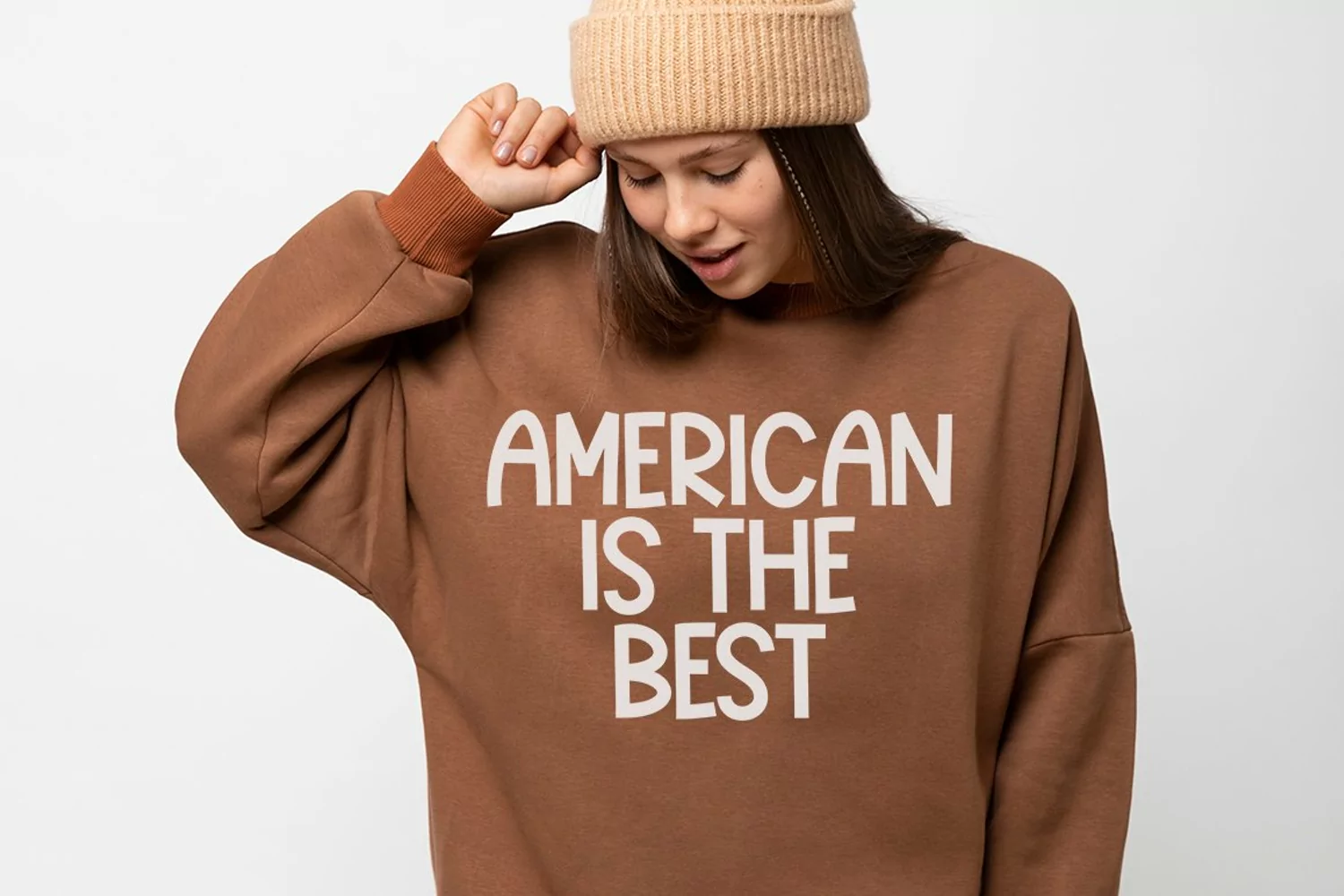
Introducing Dream Glow Parter font is a handwriting font with a sweet look and flourishing character. Glow Parter can be used for various types of design needs such as branding materials, social media, quotes, invitation, businnes cards, movie coverand more.